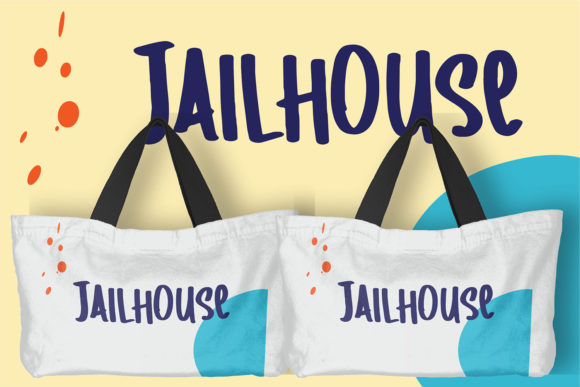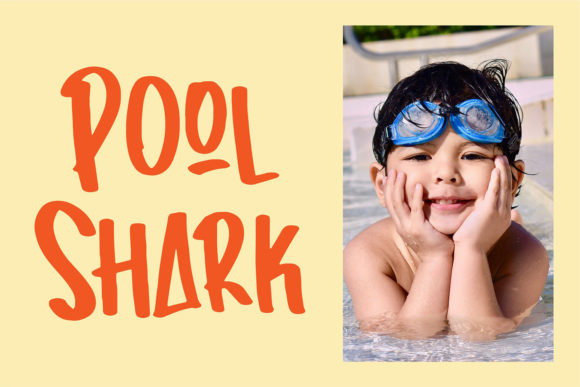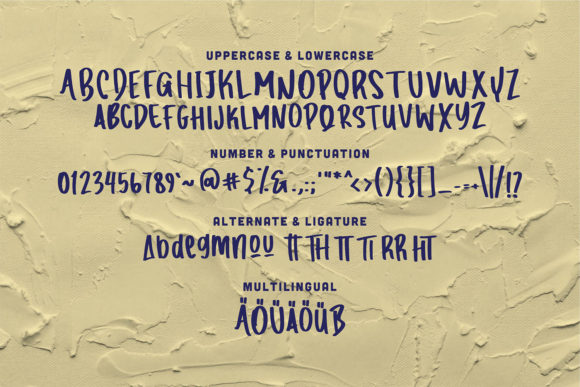
Garde Grove Font: The Ultimate Urban Styled Display Font for Designers and Crafters
In the world of typography, fonts play a crucial role in conveying the tone and personality of a design. For designers and crafters looking for a cool and urban styled display font, Garde Grove is an excellent choice. This versatile font is perfect for a wide range of designs, including t-shirts, sportswear, logos, advertisements, clothing, and more.
What is Garde Grove Font?
Garde Grove is a modern, urban styled display font designed to make a statement. Its unique and edgy style makes it perfect for designers and crafters who want to add a touch of coolness to their designs. The font features clean lines, bold shapes, and a distinctive character that sets it apart from other fonts.
Key Features of Garde Grove Font
- Urban Style: Garde Grove font boasts a modern, urban aesthetic that’s perfect for designs that require a cool and edgy vibe.
- Display Font: This font is specifically designed as a display font, making it ideal for headlines, titles, and other prominent text elements.
- Versatile: Garde Grove font can be used for a wide range of designs, from t-shirts and sportswear to logos, advertisements, and clothing.
- Easy to Read: Despite its bold and edgy style, Garde Grove font is easy to read, making it perfect for designs that require a clear and concise message.
Uses of Garde Grove Font
Garde Grove font is an incredibly versatile font that can be used for various design projects. Here are some of the most popular uses of this font:
- T-Shirts and Apparel: Garde Grove font is perfect for designing cool and stylish t-shirts, hoodies, and other apparel.
- Logos and Branding: The font’s unique style makes it an excellent choice for logos, trademarks, and branding materials.
- Advertisements: Garde Grove font can be used to create eye-catching advertisements that grab attention and convey a message.
- Sportswear and Accessories: The font’s urban style makes it perfect for designing sportswear, hats, bags, and other accessories.
Why Choose Garde Grove Font?
With so many fonts available, why choose Garde Grove? Here are a few reasons why designers and crafters love this font:
- Unique Style: Garde Grove font has a distinctive style that sets it apart from other fonts.
- High-Quality Design: The font is designed with high-quality craftsmanship, ensuring that it looks great in any design.
Tips for Using Garde Grove Font
To get the most out of Garde Grove font, here are some tips to keep in mind:
- Use it as a Display Font: Garde Grove font is designed as a display font, so use it to make a statement in your designs.
- Experiment with Colors: The font’s urban style looks great with bold and bright colors, so don’t be afraid to experiment.
- Pair it with Other Fonts: Garde Grove font can be paired with other fonts to create a unique and interesting design.
Garde Grove font is an excellent choice for designers and crafters looking for a cool and urban styled display font. Its unique style, versatility, and ease of use make it perfect for a wide range of designs. Whether you’re designing t-shirts, logos, advertisements, or clothing, Garde Grove font is sure to make a statement.